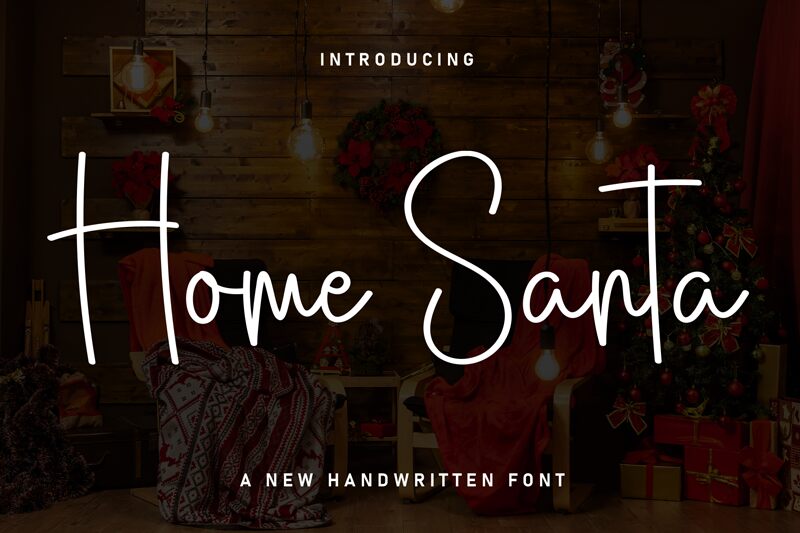
Home Santa
Home Santa font by Scratchones is a casual and light handwritten font carrying a friendly modern look. The characters are simply constructed with uniform lines which convey a relaxing vibe within each written word. This approachable aesthetic is likely the result of many influences from human writing style which are translated to digital calligraphy.
Home Santa is free and works for Thanksgiving and Halloween banners, Christmas cards, social media posts, labels, website headers, logos, packaging designs, quotes, or T-shirt designs.